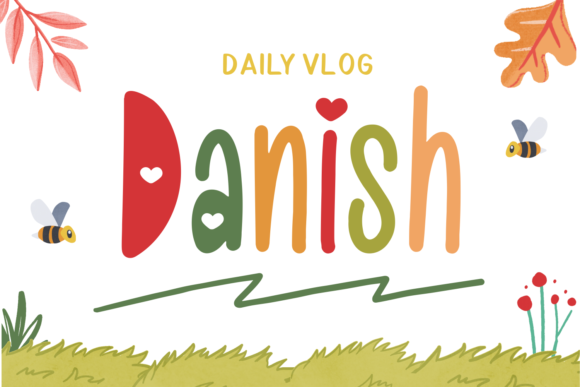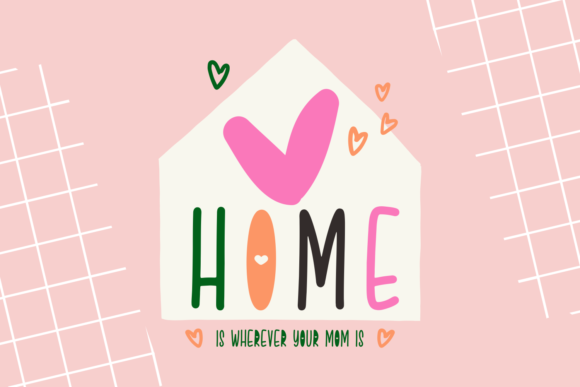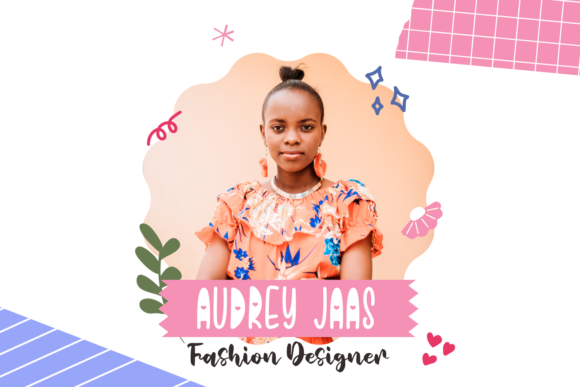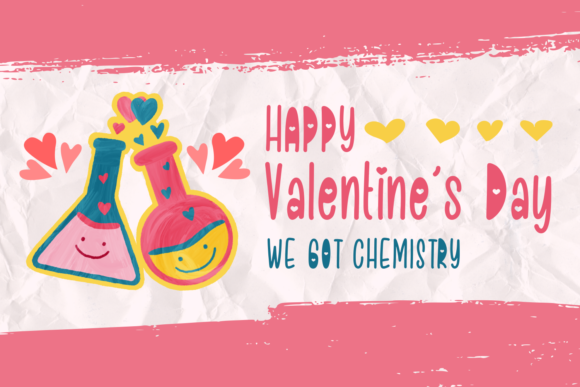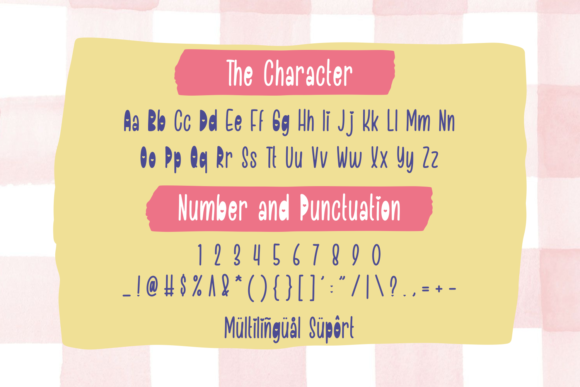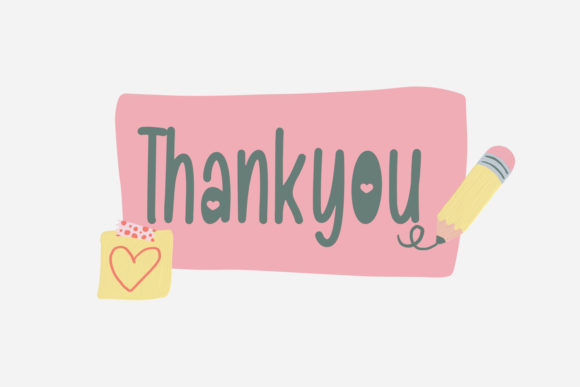
Tamepik Font
About Tamepik Font
Tamepik is more than just a font; it’s a statement of elegance and sophistication. Crafted with meticulous care, every curve and line exudes a sense of beauty that captivates your audience. Whether you’re designing captivating headings, unforgettable logos, captivating ads, or even charming printed quotes, Tamepik is the font that will elevate your creations to new heights.
Unleash your creativity and watch your packaging designs come to life with Tamepik’s exquisite charm. Transform your website or social media branding into a captivating visual experience that leaves a lasting impression on your viewers. This font isn’t just letters; it’s a work of art that will seamlessly integrate into your projects, turning them into stunning masterpieces.
Every stroke in Tamepik carries a distinct touch of elegance that will add a touch of magic to your design. From the grandest to the minutest details, this font is designed to make your creations dance with sophistication and allure. And not to forget, Tamepik is a font optimized for cut machines like Cricut and Silhouette, ensuring that your projects turn out as flawless as you imagined.
In a world where first impressions matter, Tamepik is your secret weapon. Let it be the thread that weaves elegance and wonder into your designs, leaving an indelible mark on anyone who encounters your work. Elevate your branding, enchant your audience, and bring your creative visions to life with the enchanting charm of Tamepik.